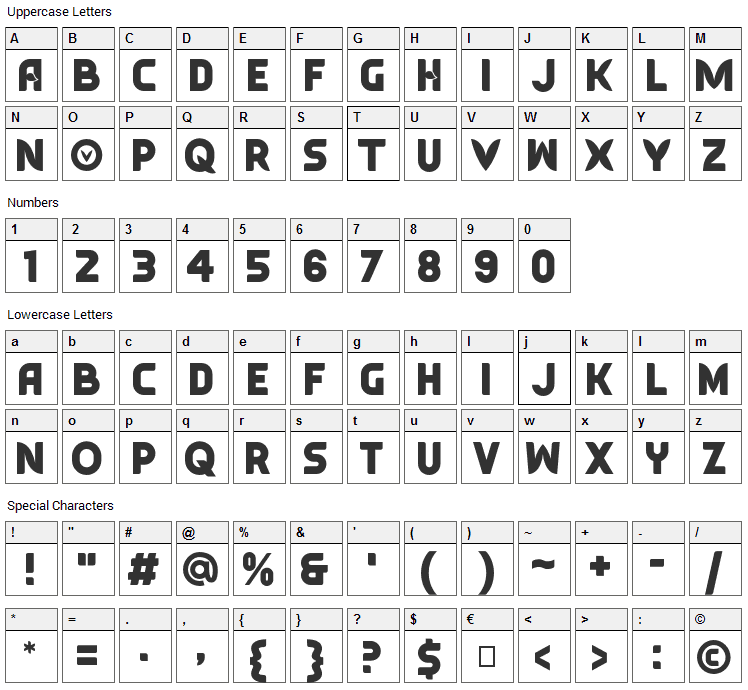
Typesauce Font
Font Name:Typesauce
Developer:MaxiGamer
"Typesauce" is a typeface based on an original logo design by Evan Hogan|@CWCVille97, made for Vinesauce, a Twitch.TV streaming group.